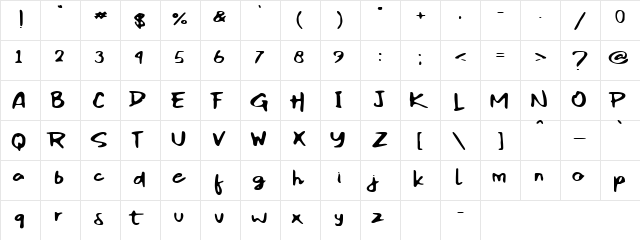
Reckless Art Regular
| Designer | Lettersiro 2018 |
Design Context for Reckless Art Typeface
Reckless Art is a composed and adaptable typeface that performs quietly and consistently across a wide range of design contexts.